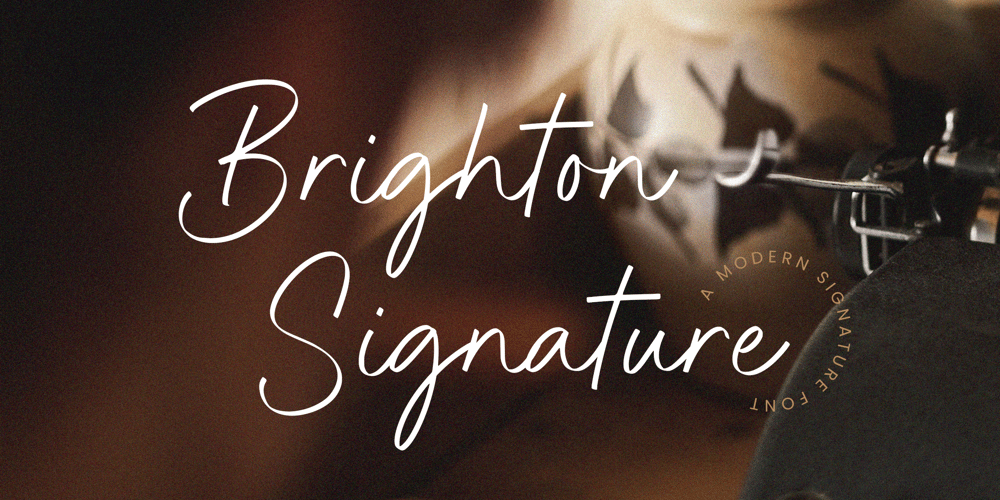
Brighton Signature Font Family was designed by Wara Sigit Tri Pamungkas and published by Timurtype. Brighton Signature contains 1 styles and family package options. Introducing by Timur typeProudly Present, Brighton Signature A Handwritten FontBrighton Signature is perfect for product packaging, branding project, megazine, social media, wedding, or just used to express words above the background.Brighton Signature also multilingual support.Enjoy the font.Thank you!